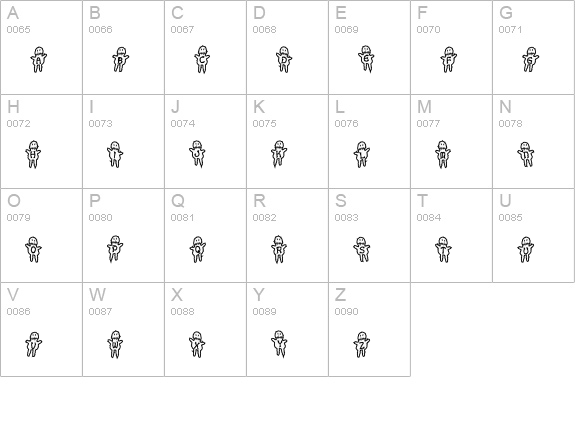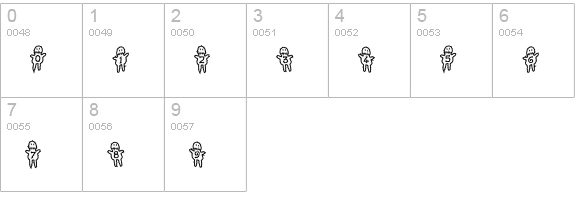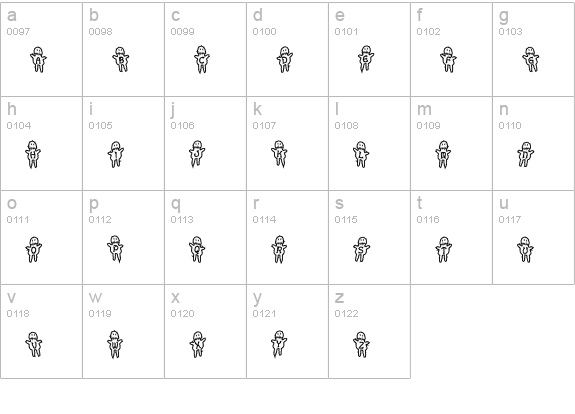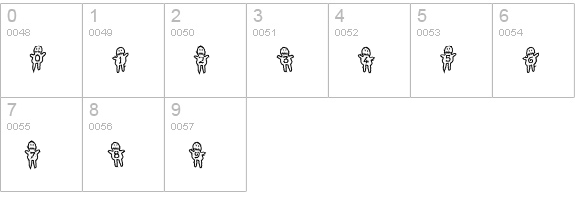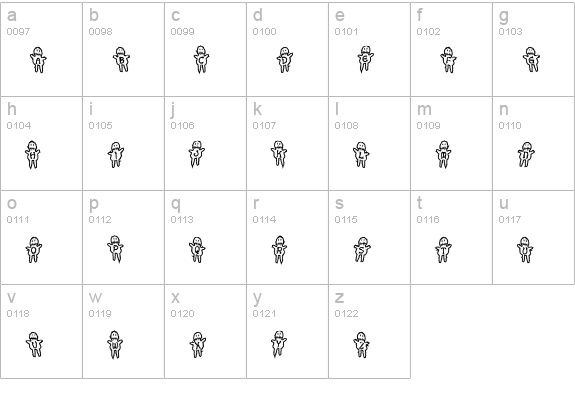
VoodooDolls Font Details
Introducing VoodooDolls, a captivating and enchanting font that will add a touch of mystique to your designs. This unique font is inspired by the art of voodoo and its intricate symbolism, creating a truly mesmerizing typography experience. VoodooDolls font features a perfect balance between boldness and delicacy, with its fine lines and detailed curves. Each letter is meticulously crafted to evoke a sense of mystery and intrigue, making it perfect for a variety of design projects. Whether you're working on a poster for a mystical event, designing a book cover for a thrilling novel, or creating a captivating logo for a brand, VoodooDolls font will effortlessly capture attention and leave a lasting impression. One of the most amazing aspects of VoodooDolls font is that it is available for free! That's right, you can easily download this captivating font at FontsMarket.com and use it in your personal or commercial projects without any cost. This makes it a valuable asset for designers, artists, and creators looking to add a touch of magic to their work without breaking the bank. So, why wait? Unleash your creativity and dive into the enchanting world of VoodooDolls font. Download it now for free at FontsMarket.com and let your designs cast a spell on everyone who sees them.